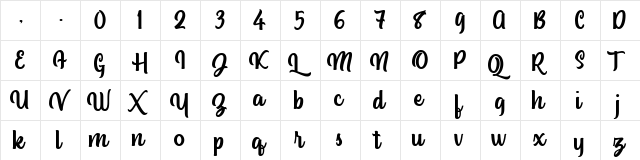
Standley Regular
Design Context for Standley Typeface
Standley is a composed and adaptable typeface that performs quietly and consistently across a wide range of design contexts.
Pro Tip: Pair Standley with a font of contrasting weight or personality to build a more expressive typographic hierarchy.